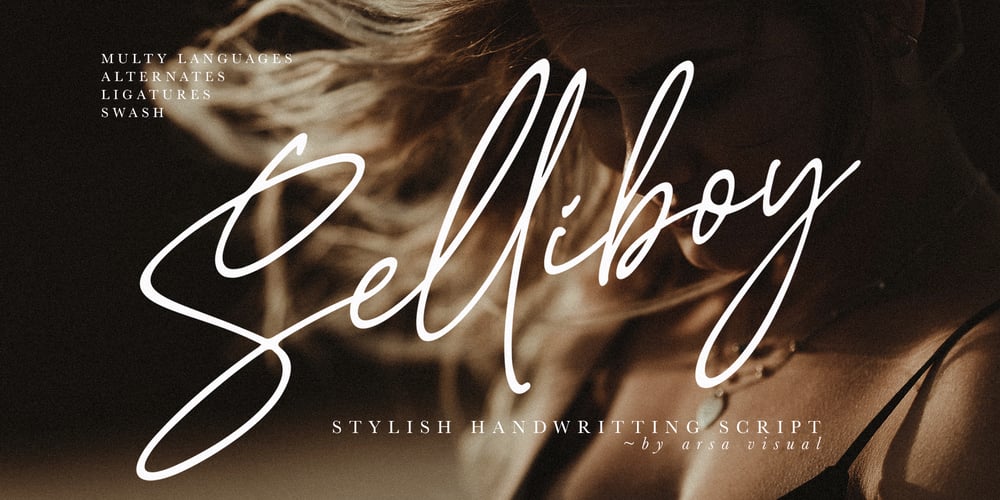
Selliboy Script
Selliboy Script font
Selliboy Script Font Family was designed by I Gede Sugiantara and published by Arsa Visual. Selliboy Script contains 1 styles and family package options. Proudly Present, Selliboy Stylish Handwritting Script Font from Arsa Visual.Selliboy It’s a modern script font with a signature style look. It’s very recommended for you who want to make some designs with natural handwriting with signature style. Selliboy will work for name card design, product packaging, branding project, social media post, wedding design, book cover title, poster or just used to express words above the background and more.